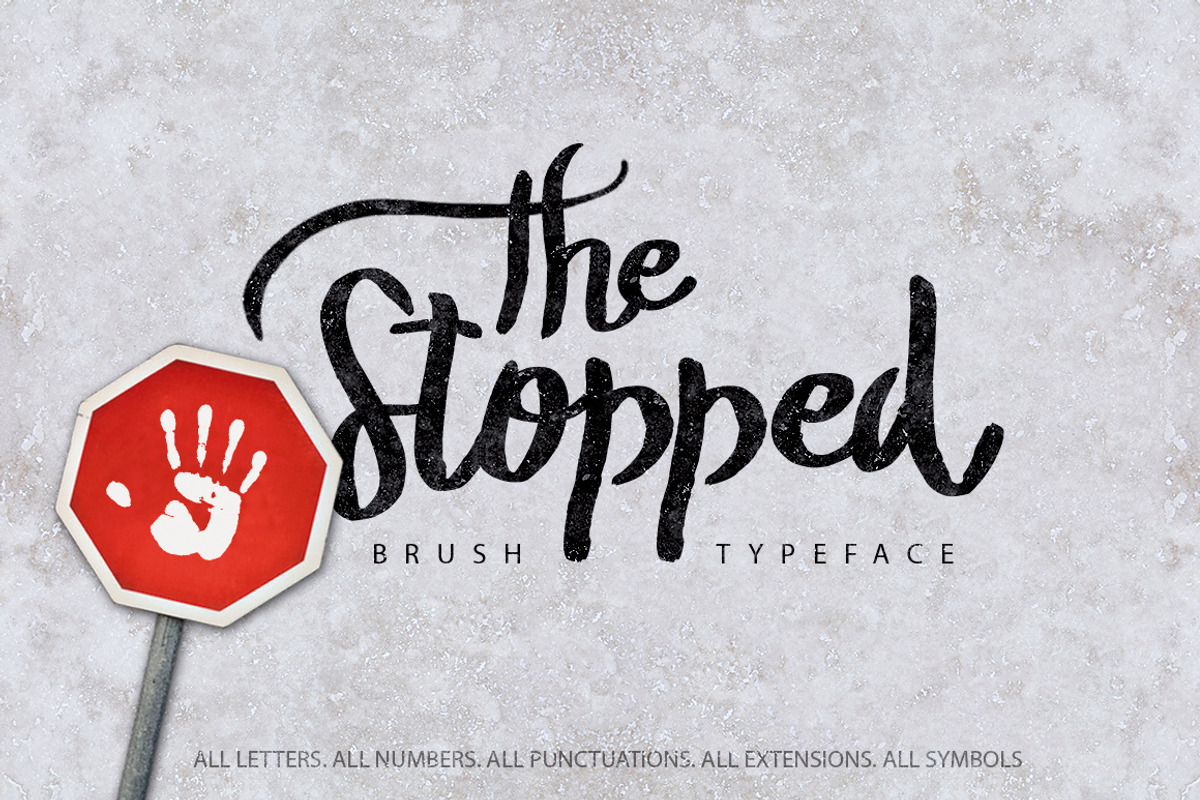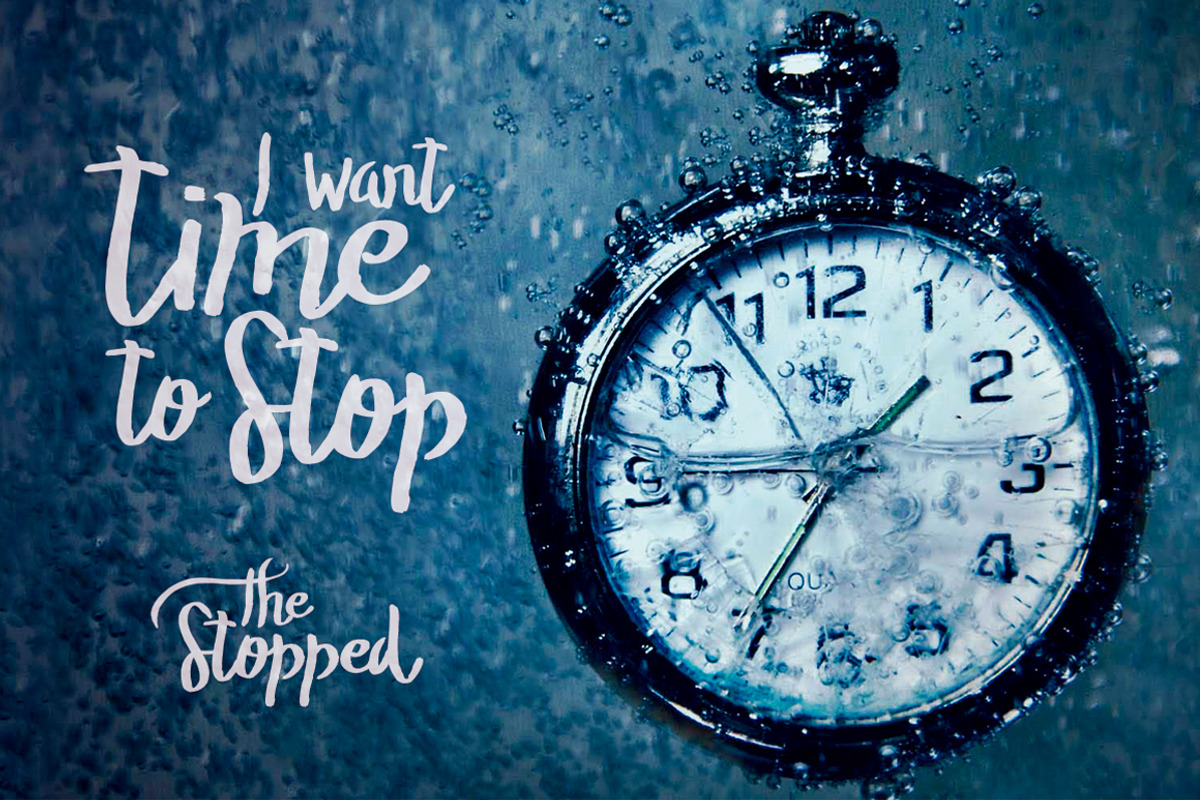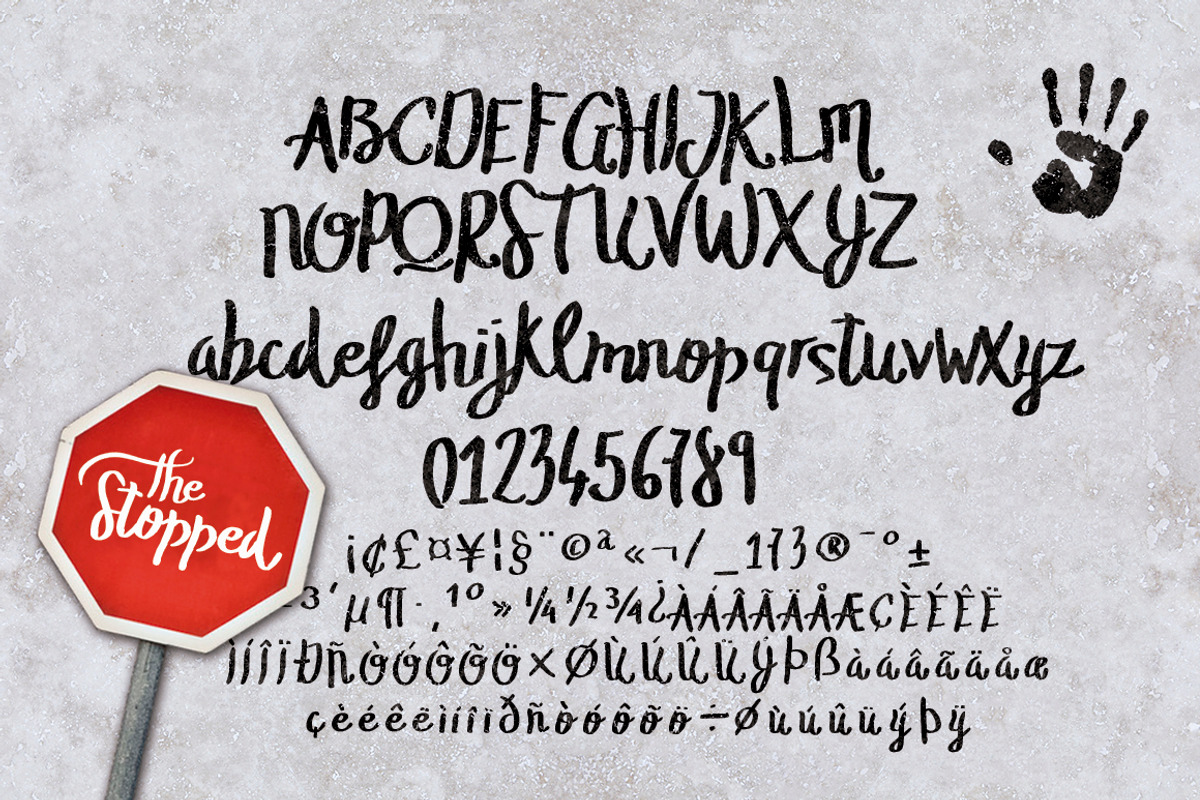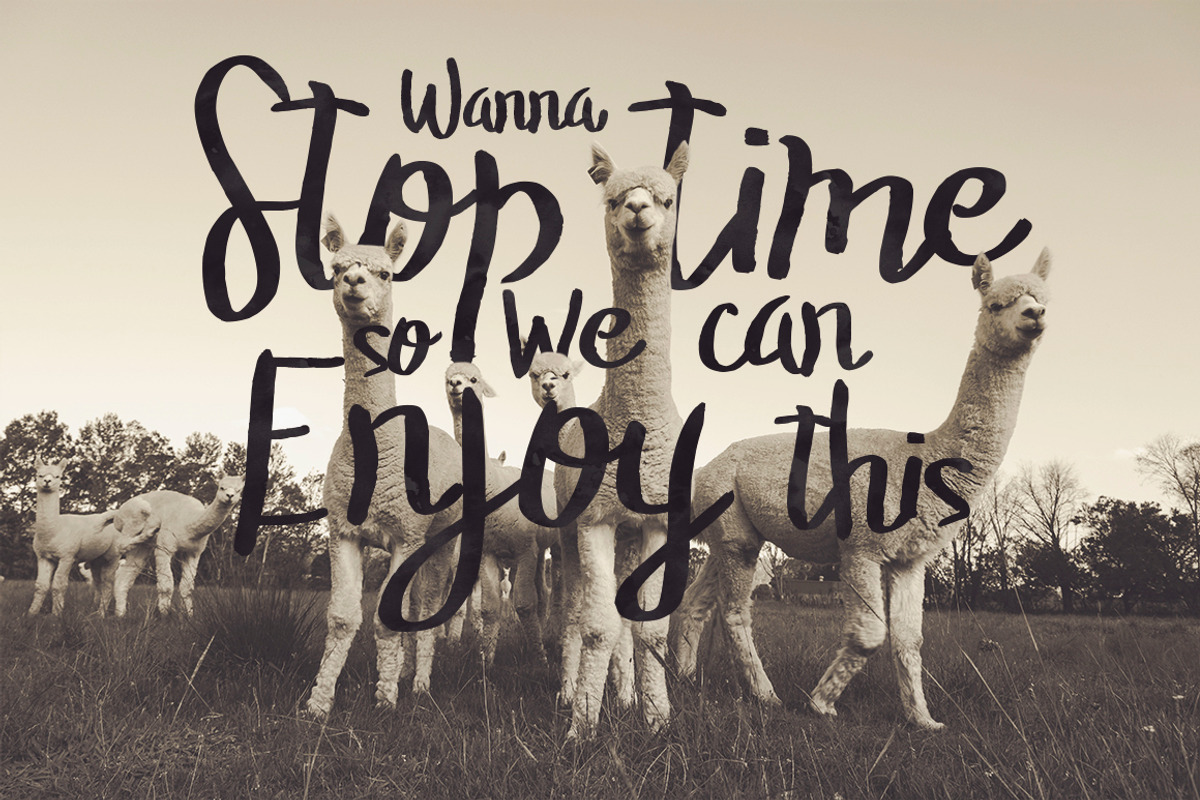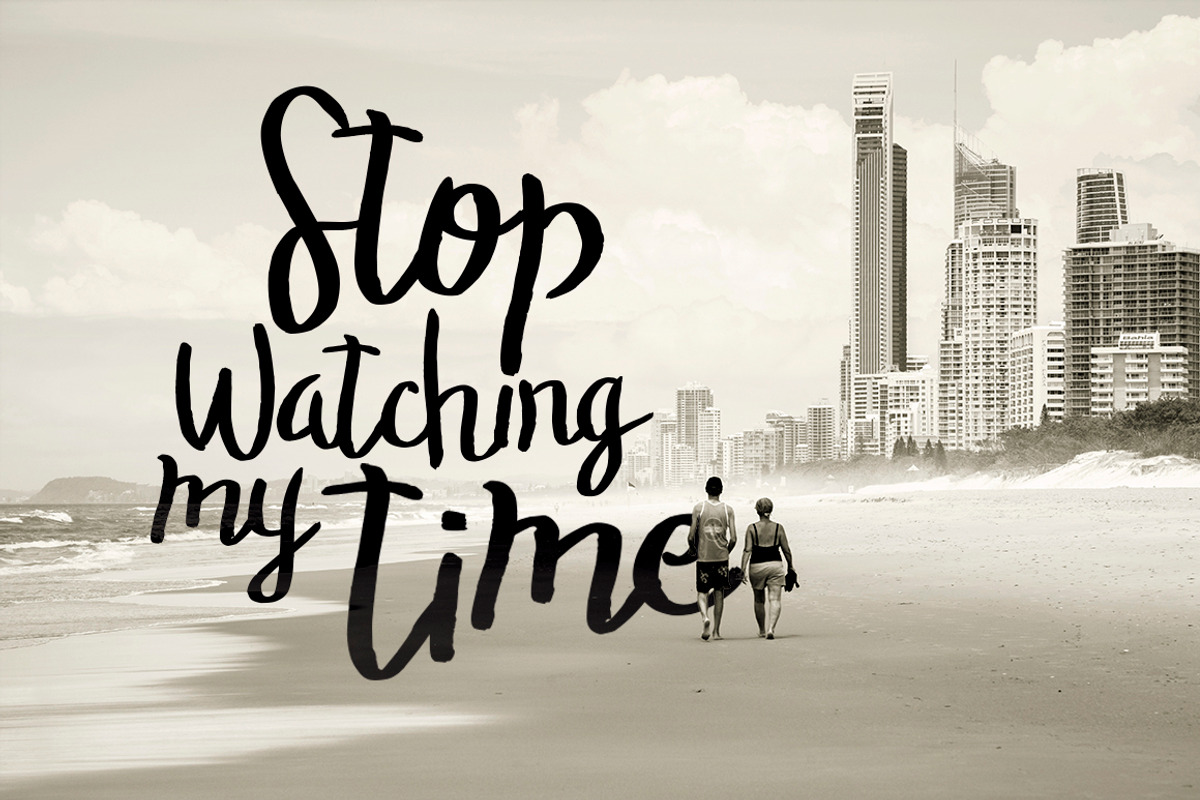
The Stopped Brush Typeface
The Stopped Brush Typeface by SmartDesigns is a font selected for branding, posters, packaging, typography.
- The Stopped Extra light
- The Stopped Light
- The Stopped Regular
- The Stopped Bold
Why The Stopped Brush Typeface is worth a look
The Stopped Brush Typeface by SmartDesigns fits naturally into Branding, posters, packaging, typography.